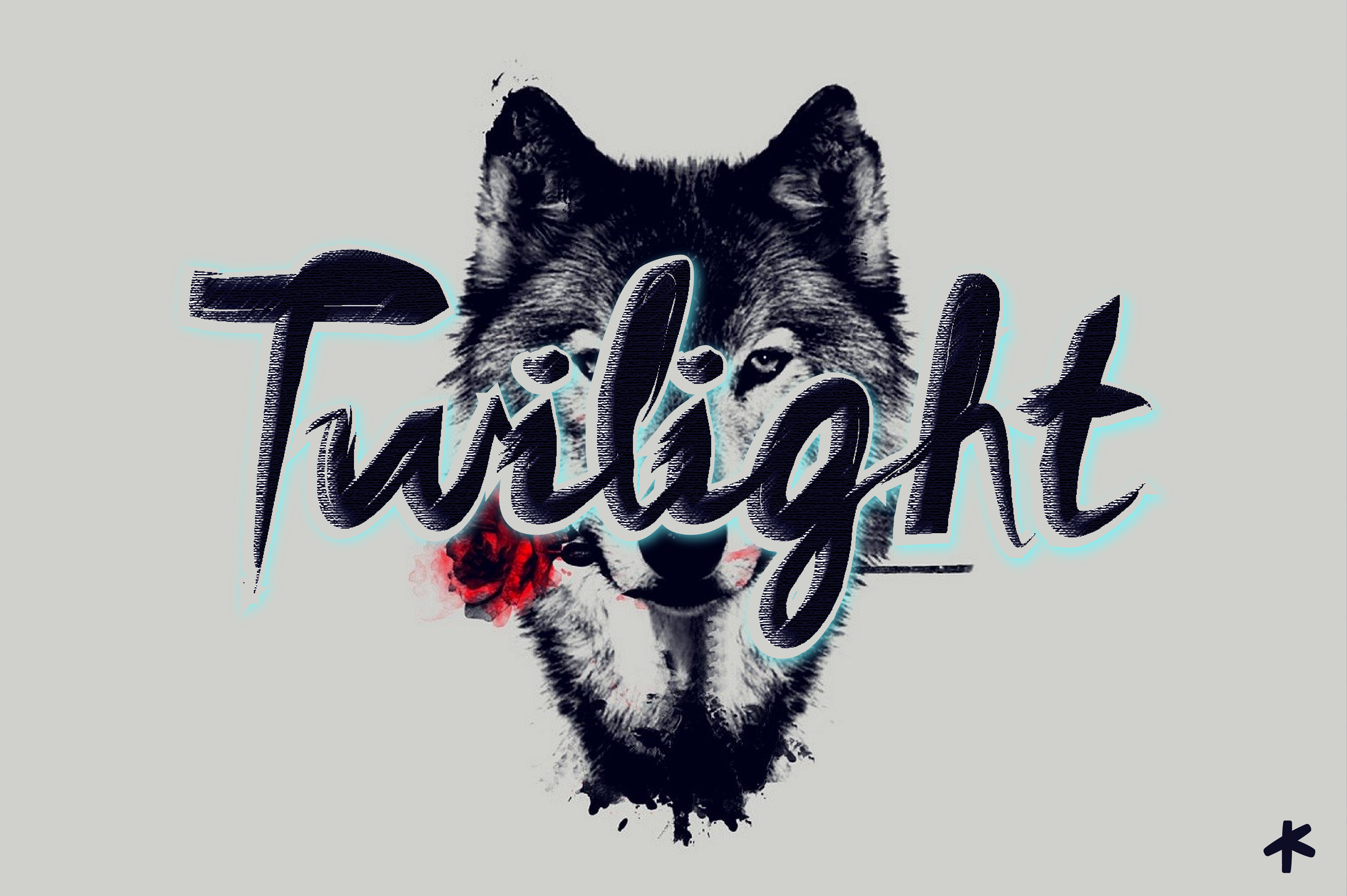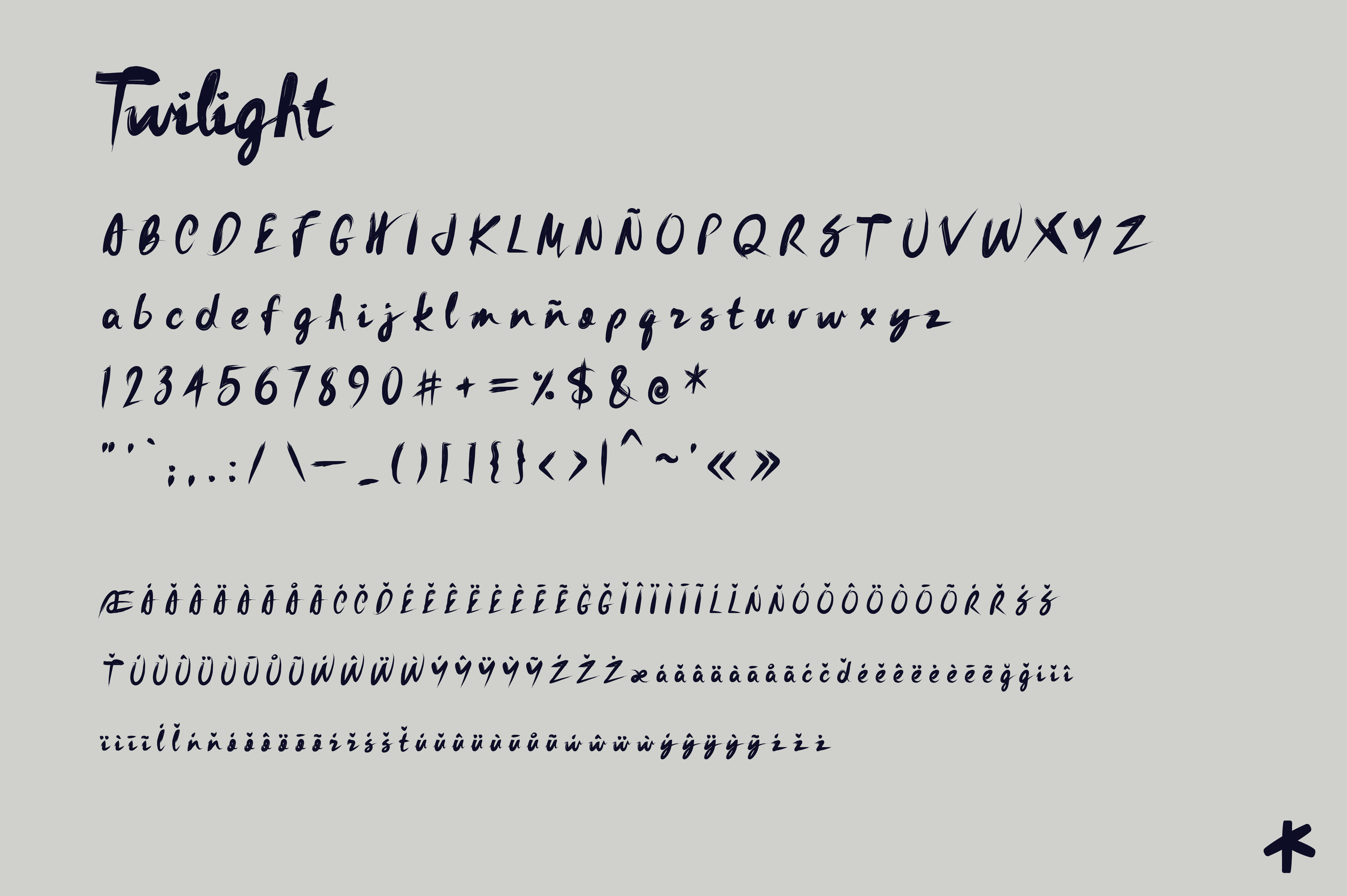
Twilight Font
About Twilight Font
Twilight is a unique, beautiful script font with a personalized feel via its quick brush strokes and slant. Use Twilight to add some character and uniqueness to your designs.